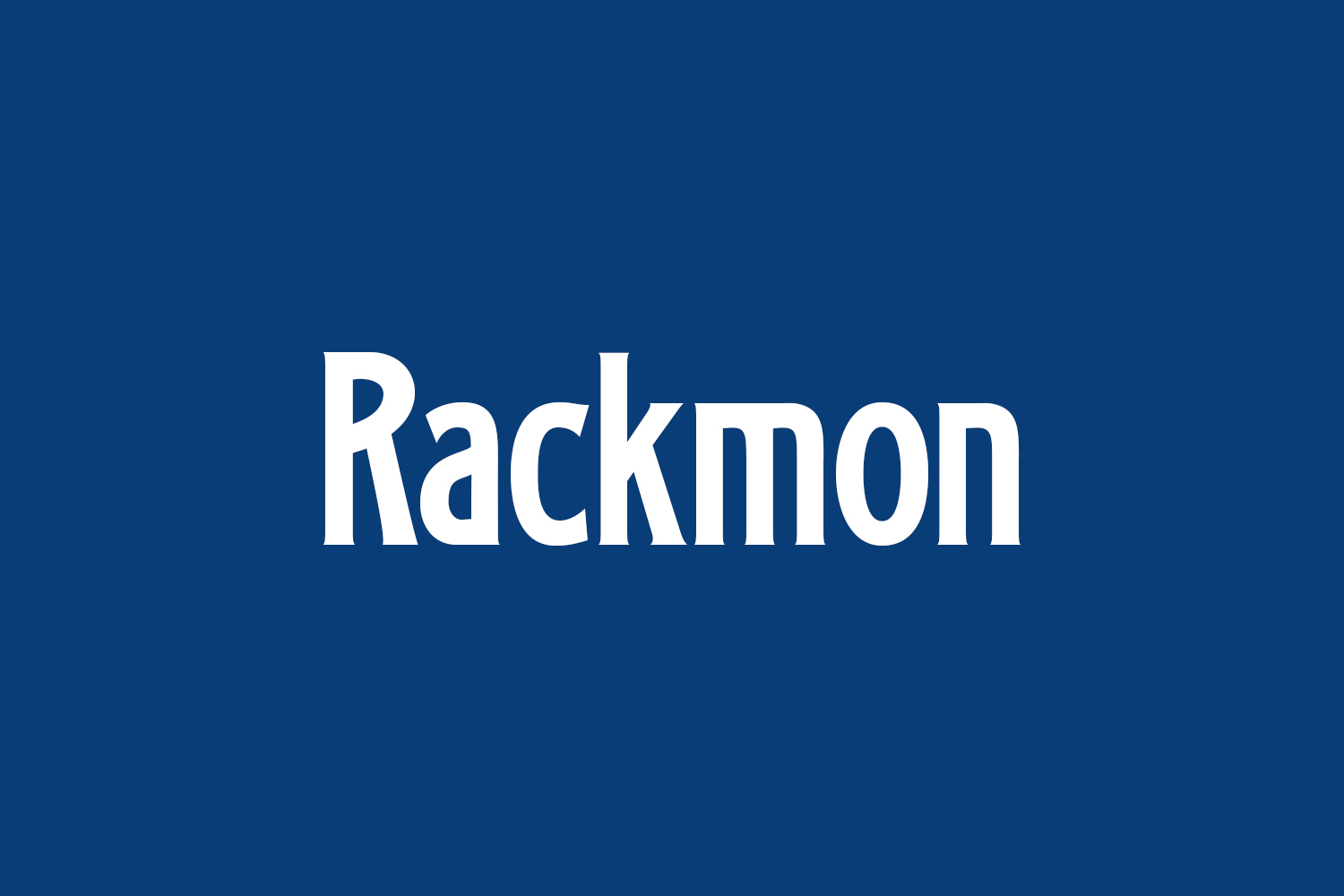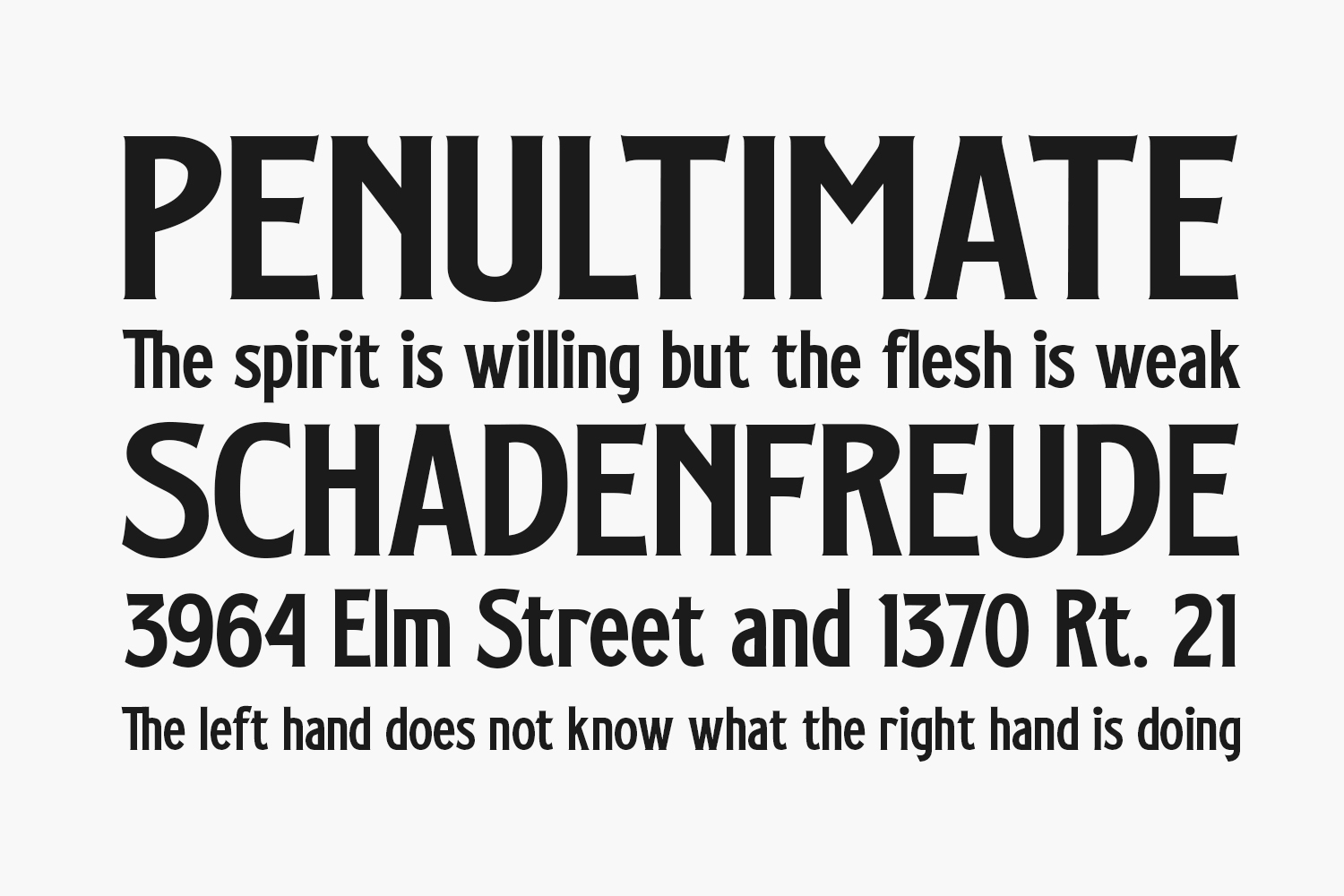
Rackmon Free Font exudes a nostalgic charm, making it the perfect vintage display typeface for various applications, including crafts, digital design, presentations, and labels. With its versatile appeal, this font is poised to be your preferred choice for any occasion. Rackmon Free Font is free for personal use only. Please purchase the full version for commercial use.
Designed by Letterhend Studio